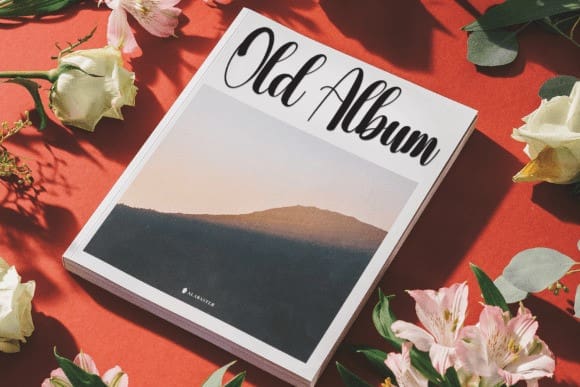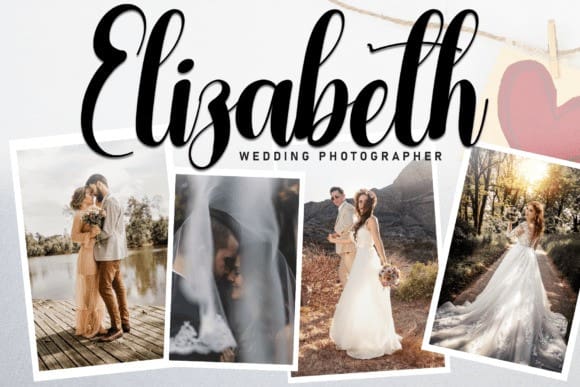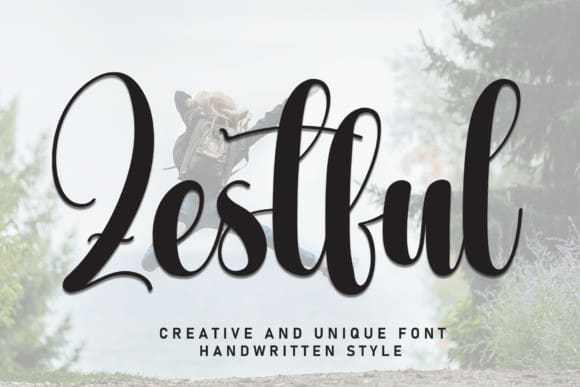
Zestful Script Font
Zestful Script Font, is a sweet and friendly handwritten display font. Cute and fun, this font is ideal for writing wedding invitations, cards, or any other design that might need a fun touch and personality!